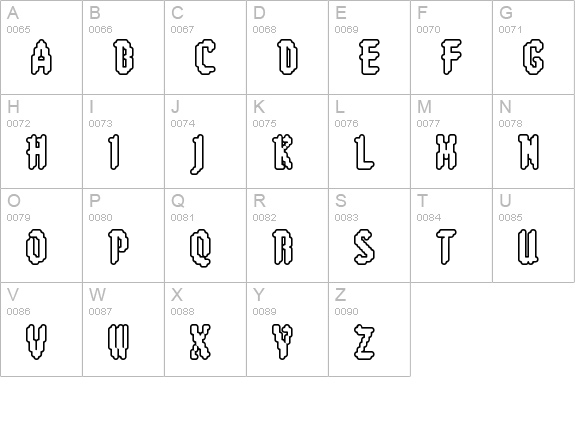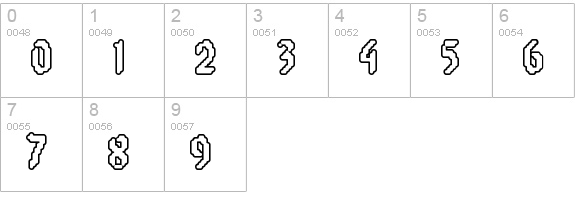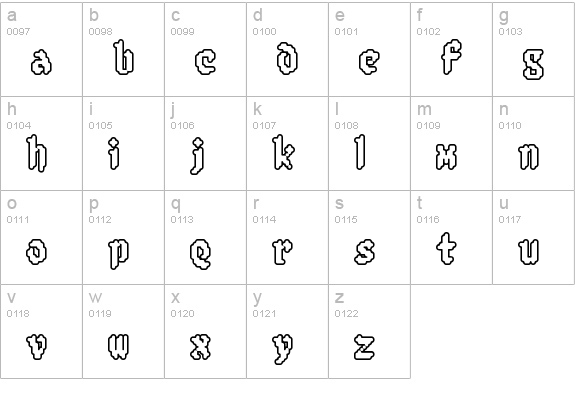
8-bit Limit RO BRK Font Details
8-bit Limit RO BRK font is a charming and nostalgic typeface that brings to mind classic video games and retro graphics. With its pixelated appearance and blocky design, this font is perfect for adding a touch of vintage flair to your projects. The unique 8-bit aesthetic of this font makes it stand out and adds a fun and playful element to any design. Best of all, 8-bit Limit RO BRK font is completely free to download at FontsMarket.com, making it accessible to everyone who wants to add a touch of old-school charm to their projects. Whether you're creating a poster, flyer, website, or any other design, this font is sure to make a statement and capture the attention of your audience. Download 8-bit Limit RO BRK font today and unleash your creative potential with this delightful and whimsical typeface.